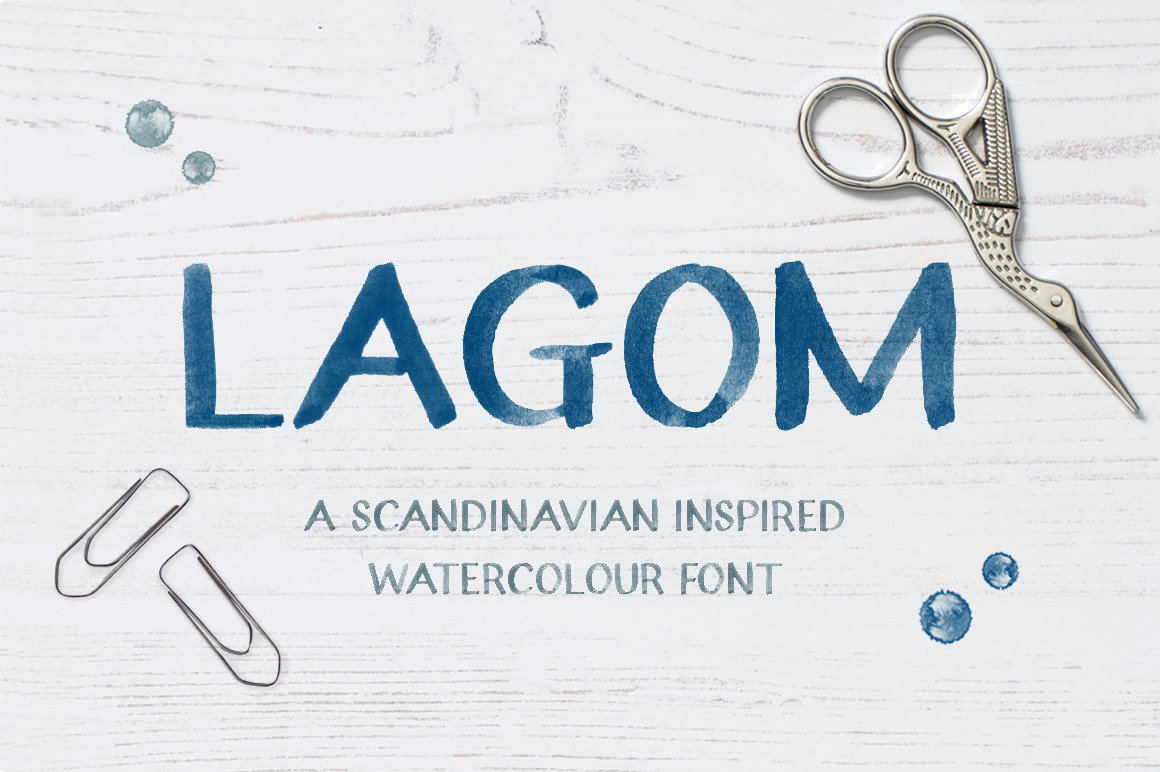
Lagom Watercolour Display Font
A cool, clean Scandinavian inspired watercolour font featuring individually hand painted characters with genuine watercolour textures.
Perfect for a wide range of projects that need a personal, hand lettered touch while remaining clean and legible.